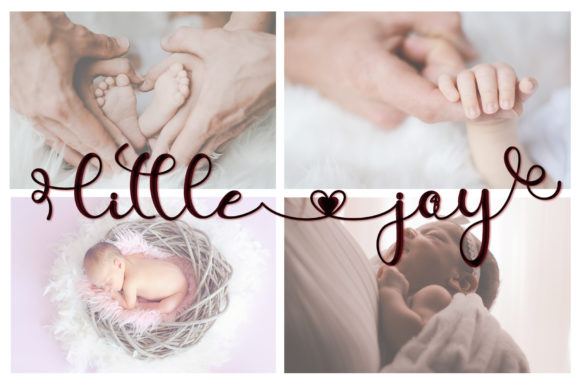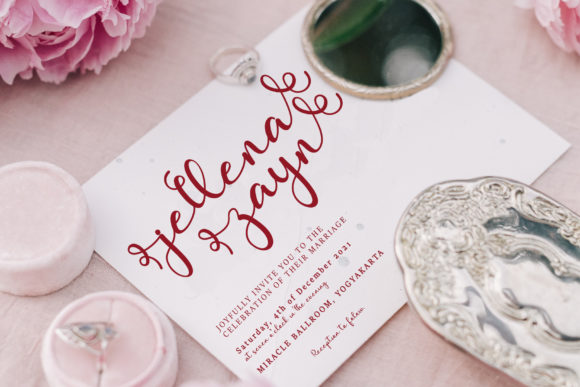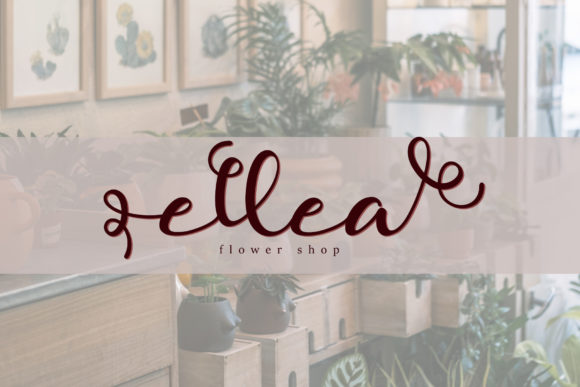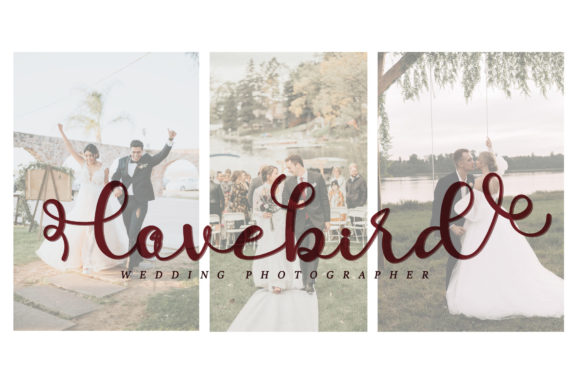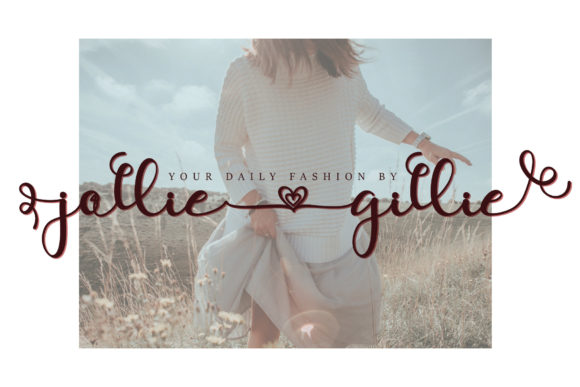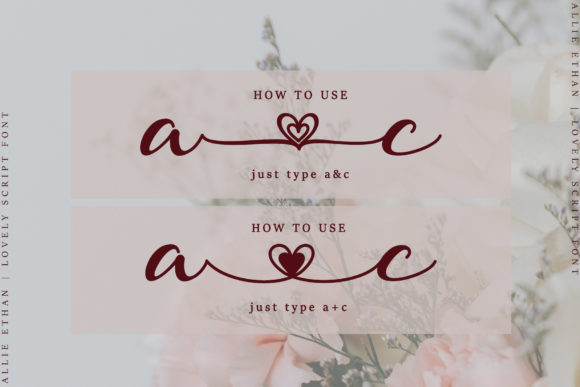
Introducing Allie Ethan Font: The Sweetest Valentine’s Day Script Font
Are you looking for a font that exudes sweetness, cuteness, and romance? Look no further than Allie Ethan Font, a Valentine’s Day edition script font that’s perfect for designers and crafters. This charming font features tiny little hearts, making it an ideal choice for creating romantic and whimsical designs.
What Makes Allie Ethan Font So Special?
Allie Ethan Font is a PUA (Private Use Area) encoded font, which means you can access all glyphs and swashes with ease. This feature makes it incredibly easy to use and customize, allowing you to create stunning designs without any hassle. The font’s PUA encoding also ensures that you can access a wide range of characters, including special characters, ligatures, and swashes.
Perfect for Valentine’s Day Designs
As a Valentine’s Day edition font, Allie Ethan Font is perfect for creating romantic designs, such as Valentine’s Day cards, invitations, and social media graphics. The font’s sweet and cute design features tiny little hearts, making it an ideal choice for designers and crafters who want to create whimsical and romantic designs.
Features of Allie Ethan Font
- PUA Encoded: Access all glyphs and swashes with ease, making it easy to customize and use.
- Tiny Little Hearts: The font features tiny little hearts, adding a touch of romance and whimsy to your designs.
- Sweet and Cute Design: Allie Ethan Font has a sweet and cute design that’s perfect for creating romantic and playful designs.
- Script Font: The font is a script font, making it perfect for creating elegant and sophisticated designs.
Why Designers and Crafters Love Allie Ethan Font
Designers and crafters love Allie Ethan Font for its versatility and ease of use. The font is perfect for creating a wide range of designs, from romantic Valentine’s Day cards to whimsical party invitations. The font’s PUA encoding also makes it easy to use and customize, saving designers and crafters time and effort.
Ideas for Using Allie Ethan Font
Here are some ideas for using Allie Ethan Font:
- Valentine’s Day Cards: Create romantic Valentine’s Day cards with Allie Ethan Font, adding a touch of sweetness and whimsy to your designs.
- Party Invitations: Use Allie Ethan Font to create whimsical party invitations, perfect for baby showers, bridal showers, and birthday parties.
- Social Media Graphics: Create stunning social media graphics with Allie Ethan Font, adding a touch of romance and elegance to your designs.
- Wedding Stationery: Use Allie Ethan Font to create beautiful wedding stationery, including wedding invitations, save-the-date cards, and thank-you cards.
Allie Ethan Font is a sweet, cute, and romantic script font that’s perfect for designers and crafters. With its PUA encoding, tiny little hearts, and sweet design, this font is ideal for creating romantic and whimsical designs. Whether you’re creating Valentine’s Day cards, party invitations, or social media graphics, Allie Ethan Font is the perfect choice. So why wait? Get your hands on Allie Ethan Font today and start creating stunning designs that will leave a lasting impression!